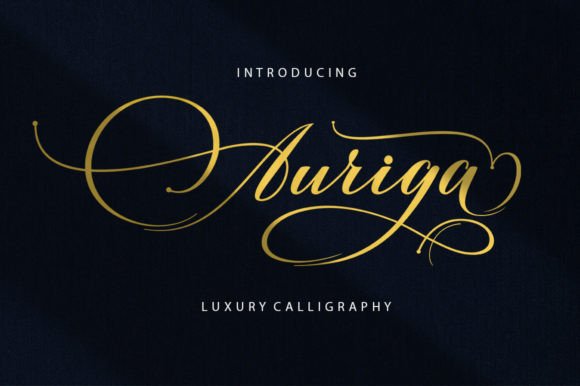
Auriga Font: A Timeless Elegance for Your Designs
Auriga Font is a beautiful, graceful calligraphic script font that exudes a timeless elegance. Its sweeping curves and intricate flourishes evoke a sense of refinement and sophistication, making it perfect for designs that require a touch of classic beauty. In this article, we’ll explore the features and benefits of Auriga Font, and how it can elevate your designs to the next level.
What is Auriga Font?
Auriga Font is a calligraphic script font that is designed to bring a sense of elegance and sophistication to your designs. Its delicate strokes and flowing lines make it perfect for invitations, formal documents, and other designs that require a touch of classic beauty. The font is PUA encoded, which means you can access all the glyphs and ligatures with ease.
Features of Auriga Font
- Calligraphic Script Font: Auriga Font is a calligraphic script font that is designed to mimic the look of hand-written calligraphy.
- Sweeping Curves and Intricate Flourishes: The font features sweeping curves and intricate flourishes that evoke a sense of refinement and sophistication.
- PUA Encoded: The font is PUA encoded, which means you can access all the glyphs and ligatures with ease.
- Delicate Strokes and Flowing Lines: The font features delicate strokes and flowing lines that make it perfect for designs that require a touch of classic beauty.
Benefits of Using Auriga Font
Auriga Font offers a range of benefits for designers and businesses looking to add a touch of elegance and sophistication to their designs. Some of the benefits of using Auriga Font include:
- Timeless Elegance: Auriga Font exudes a timeless elegance that will never go out of style.
- Versatility: The font is versatile and can be used for a range of designs, from invitations and formal documents to branding and advertising.
- Ease of Use: The font is easy to use and can be accessed with ease, thanks to its PUA encoding.
- Unique and Memorable: Auriga Font is a unique and memorable font that will help your designs stand out from the crowd.
Use Cases for Auriga Font
Auriga Font is perfect for a range of designs that require a touch of classic beauty and elegance. Some of the use cases for Auriga Font include:
- Invitations: Auriga Font is perfect for invitations, such as wedding invitations, birthday invitations, and graduation invitations.
- Formal Documents: The font is also suitable for formal documents, such as certificates, diplomas, and official letters.
- Branding and Advertising: Auriga Font can be used for branding and advertising, such as logos, packaging, and print ads.
- Web Design: The font can also be used for web design, such as headings, titles, and other design elements.
Auriga Font is a beautiful, elegant, and sophisticated calligraphic script font that is perfect for designs that require a touch of classic beauty. Its sweeping curves and intricate flourishes evoke a sense of refinement and sophistication, making it perfect for invitations, formal documents, and other designs. With its PUA encoding, delicate strokes, and flowing lines, Auriga Font is a versatile font that can be used for a range of designs. By following the tips outlined in this article, you can use Auriga Font effectively in your designs and create a unique and memorable visual identity.
- What is Auriga Font?: Auriga Font is a calligraphic script font that exudes a timeless elegance and sophistication.
- What are the benefits of using Auriga Font?: The benefits of using Auriga Font include its timeless elegance, versatility, ease of use, and unique and memorable design.
- What are some use cases for Auriga Font?: Auriga Font is perfect for invitations, formal documents, branding and advertising, and web design.